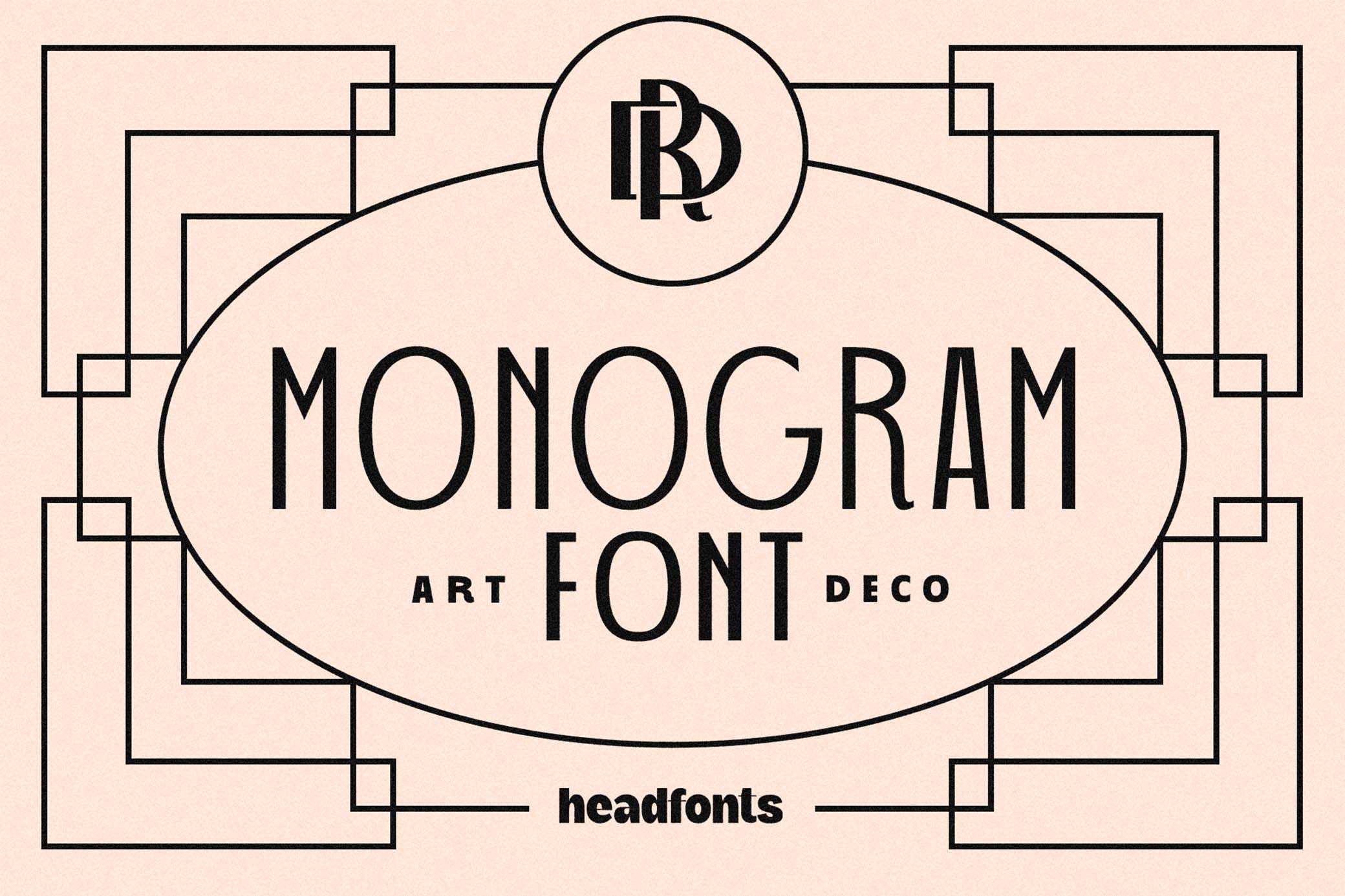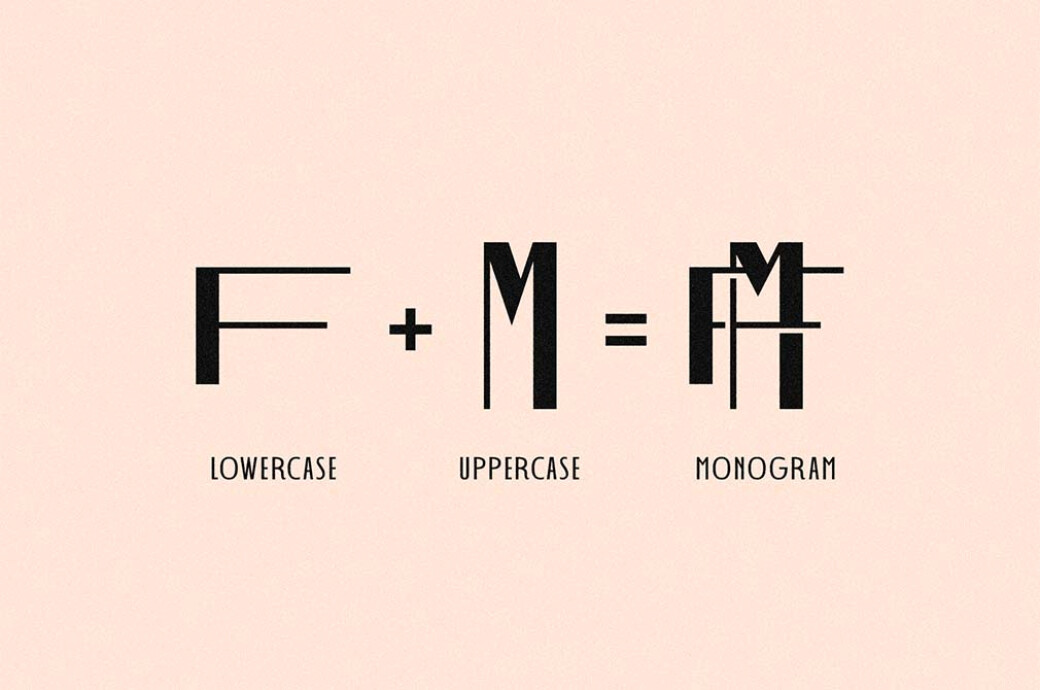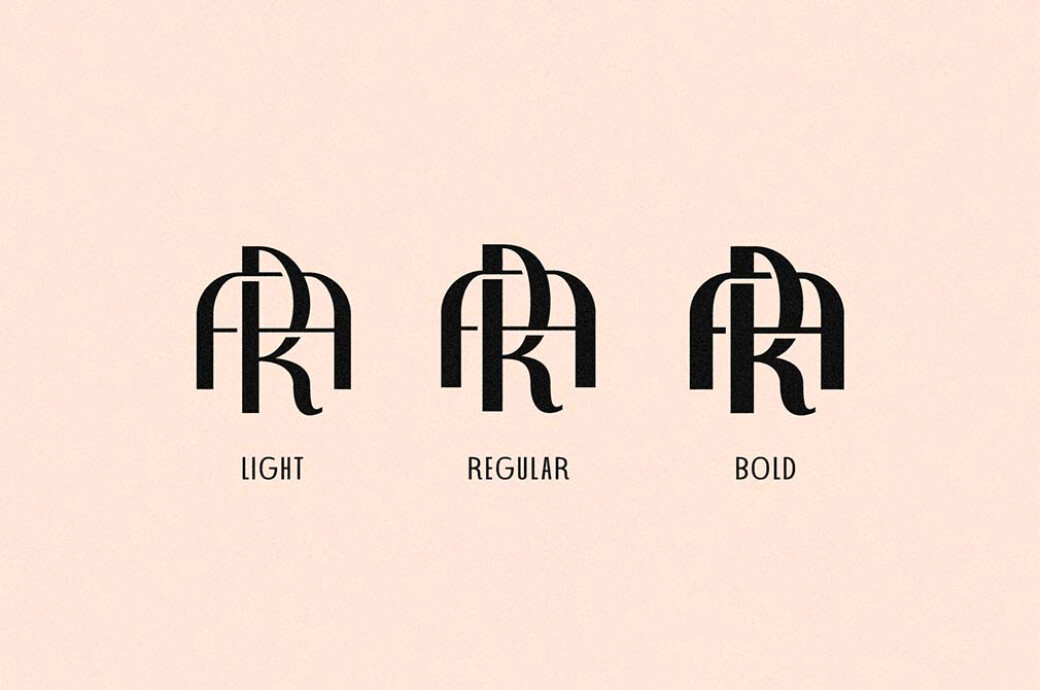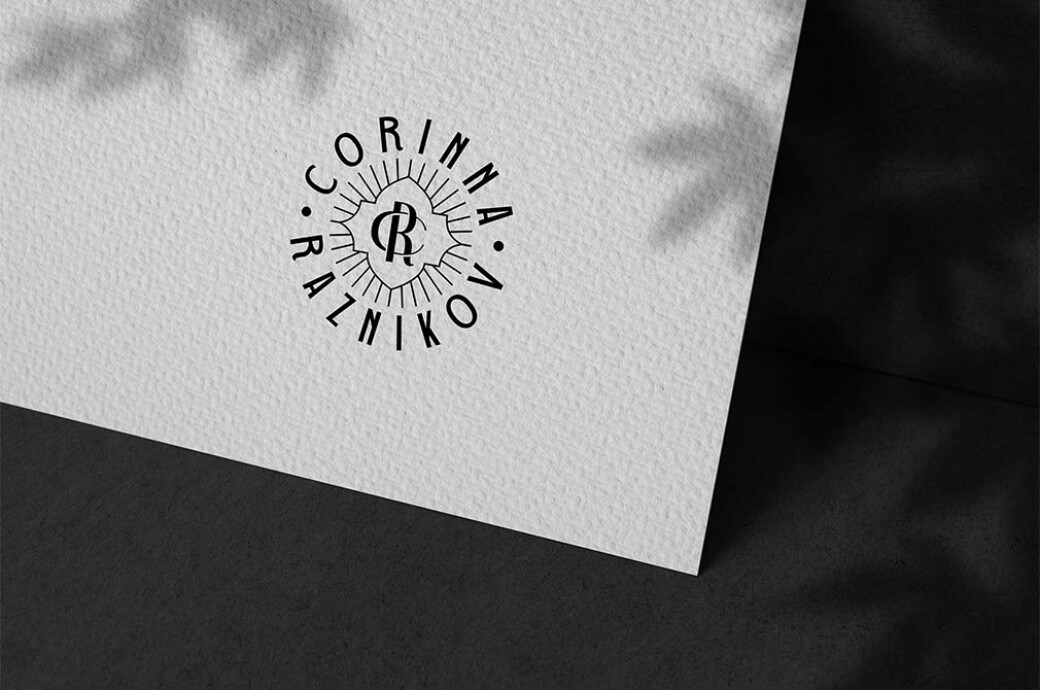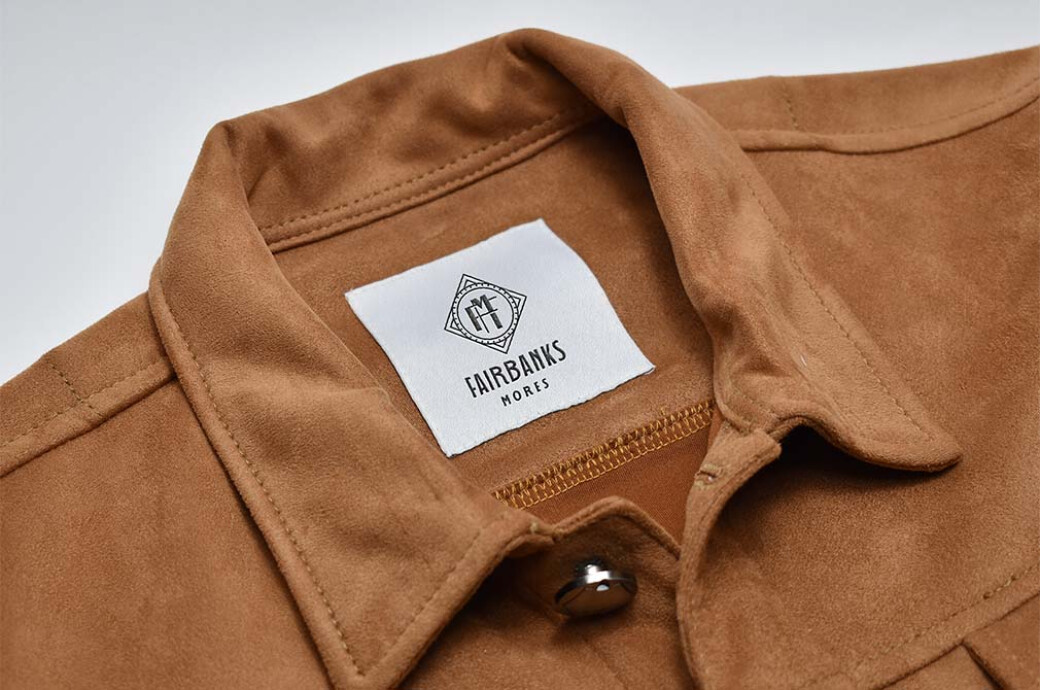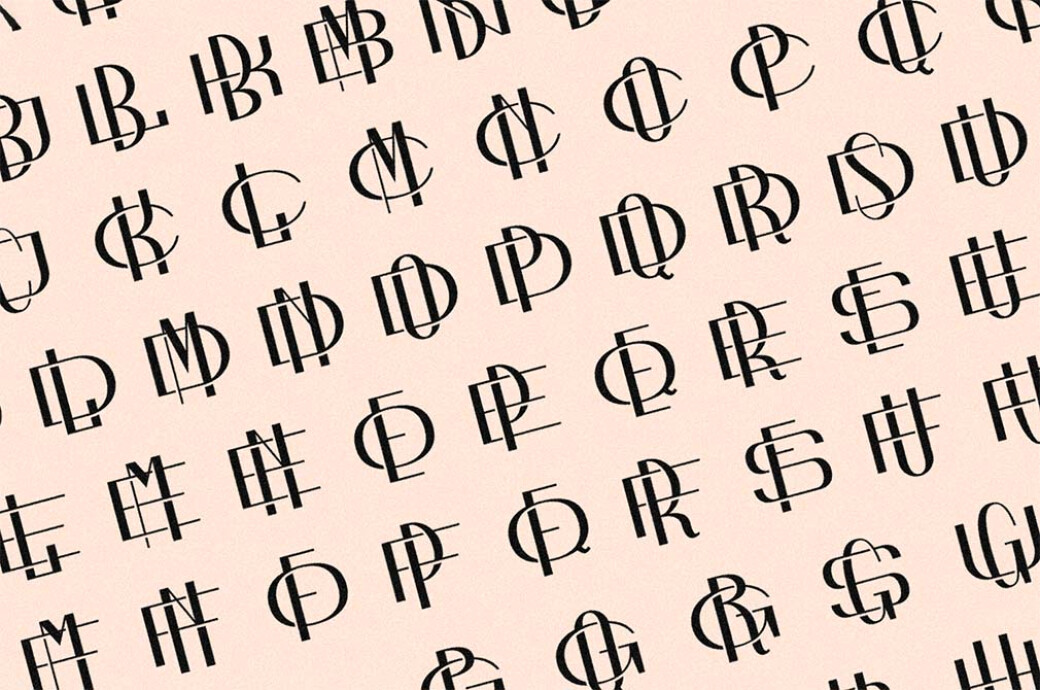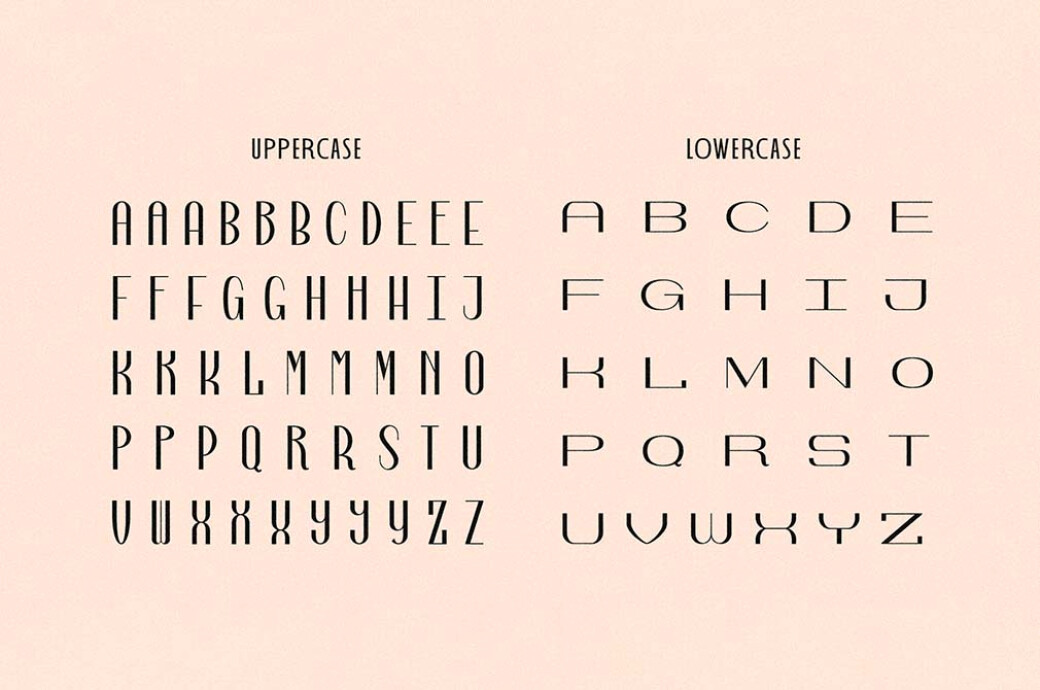
Art Deco Monogram Font
Art Deco vibes or classic monograms? We don't make you choose, as this elegant font allows you to combine the most notable stylistic features of the 20s typography.Art Deco Monogram is an entire bundle specially designed for creating monograms. The font includes three styles: Light, Regular, and Bold. There's also the Decohead collection with 6 font styles. And finally, you'll have some extra graphics: 10 premade badges and 22 monoline shapes. Such a rich collection allows almost endless combinations. To make a monogram, choose an uppercase and a lower uppercase letter, place them on top of each other, adjust them to have the same center, or use the premade monograms. That's it!